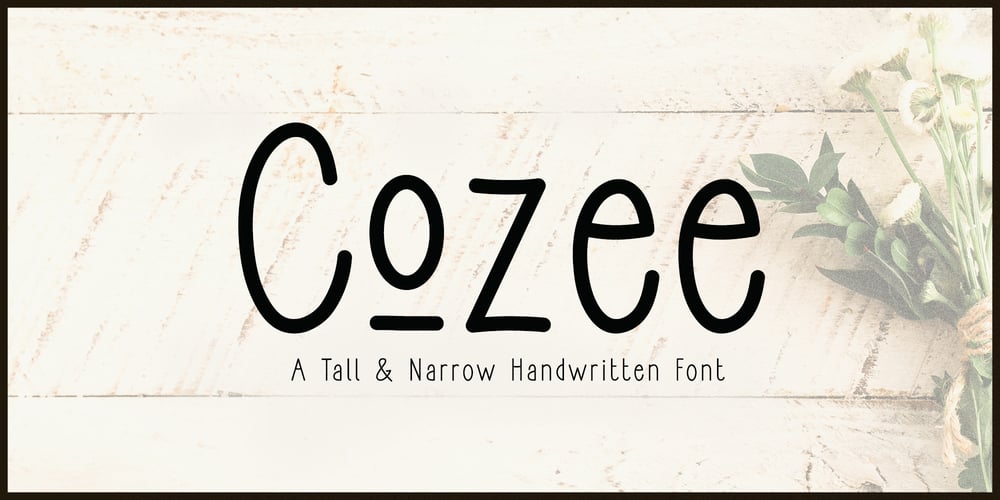
Cozee
Cozee font
Cozee Font Family was designed by Alan Parker and published by Parker Creative. Cozee contains 1 styles and family package options. Introducing Cozee, a quirky tall and narrow handwritten font with stylistic alternates! This modern condensed sans serif is fun and skinny – ideal for creating minimalist illustrations, cricut projects, kids books, branding projects, custom home decor, and so much more.